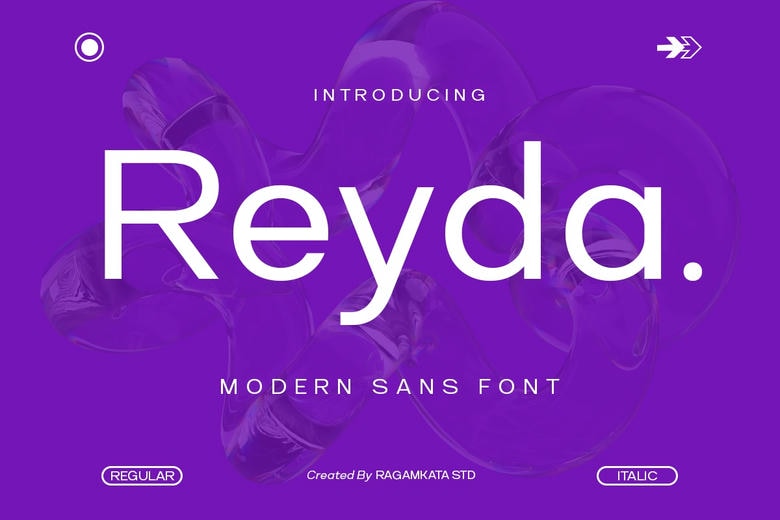
Reyda Font
Reyda is a contemporary sans serif typeface, is created with a simple geometry, flowing lines, and symmetrical forms to achieve the bold and minimal visual image. Designed with conciseness, flexibility, and high digital performance, the typeface represents modern aesthetics, which are refreshing, professional, and quite versatile to use in contemporary project-based creative projects.
Ideal to brand designers, technology startups, creative studios, UI/UX designers, digital creators, and marketing teams, Reyda is a stable typographic solution to websites, applications, logos, social media, presentation and advertising projects. Its contemporary format makes it very readable and at the same time renders it stylish and shiny in both online and paper versions.
Whether it is corporate branding and tech interfaces or editorial layouts, promotional graphics, and motion design, Reyda adds premium clean, confident, and future tone to any project. The designers are given the power to create visual identities that are ultra modern, dynamic, and timeless with this font, which produces significant visual impact without complications or errors.
Reyda Sans Serif Font